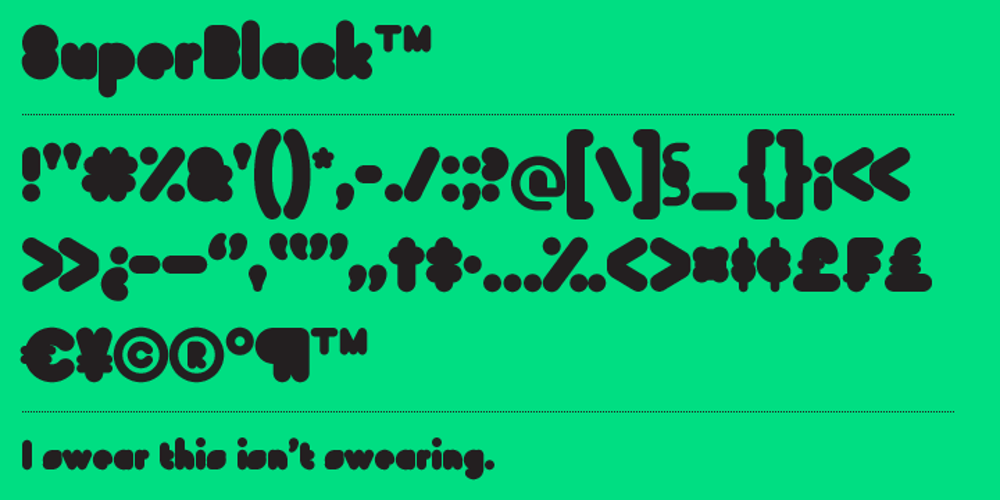
SuperBlack Font Family was designed by Fábio Duarte Martins and published by Scannerlicker. SuperBlack contains 1 styles and family package options. SuperBlack is a saucy counterless typeface, ideal for display purposes. Whenever you need impact with a playful feel, SuperBlack will pop out.